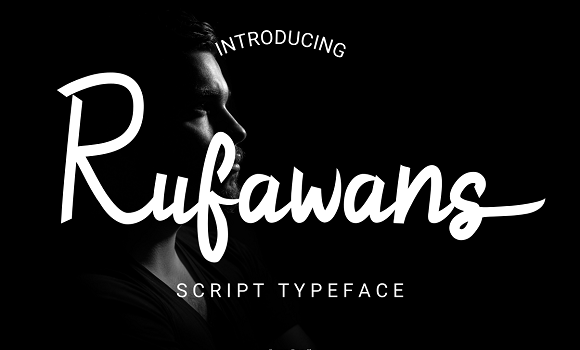
rufawans
Rufawans Font – Free Download Introduction to Rufawans Font The Rufawans is a fresh & modern script font. 📸 Preview Gallery 6 images 📌 Product Name Rufawans Font 👤 Author Rvandtype 📂 Category Explore ⬇️ Download Rufawans Font FREE Free